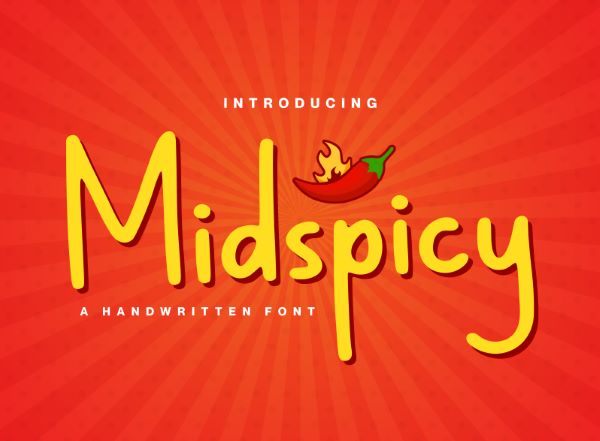
Midspicy Font
Midspicy Font is a scrapbook font by Allouse Studio with clean, precise lines and a warm human expressiveness that creates an intimate connection between text and audience. Its full-version script character set is rich with originality and individuality — the kind of handwritten personality that makes every layout feel personally crafted rather than digitally produced.